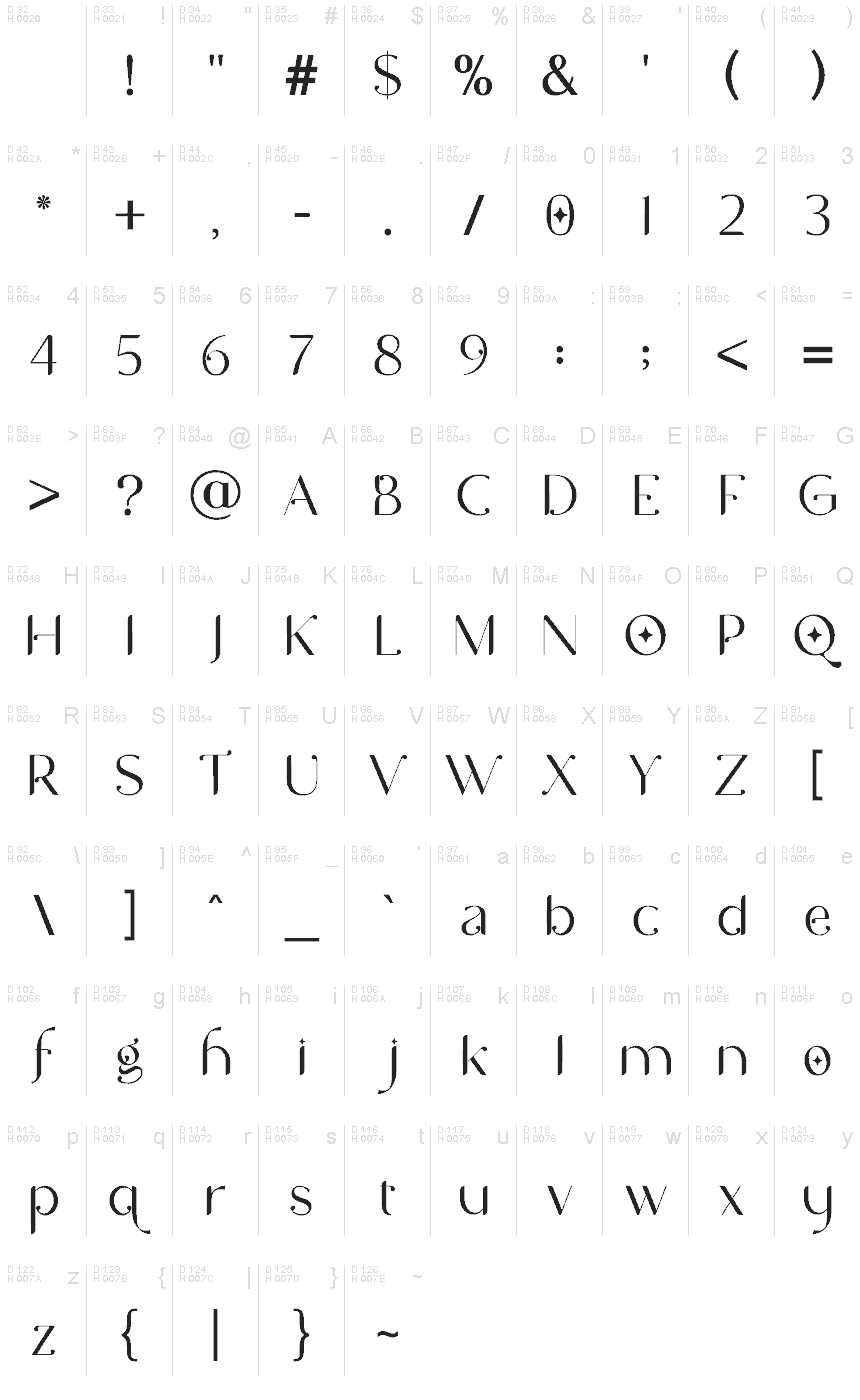
NCL Bahie Waonid Demo
A font created by NCL Studio with bold characteristics and a graceful presence. This freeware tool is ideal for headline design, signage, branding projects, posters, invitation cards, magazines, and logos. NCL Bahie Waonid is an amazing decorative font designed for display purposes only and it is available in OTF format in a single style.